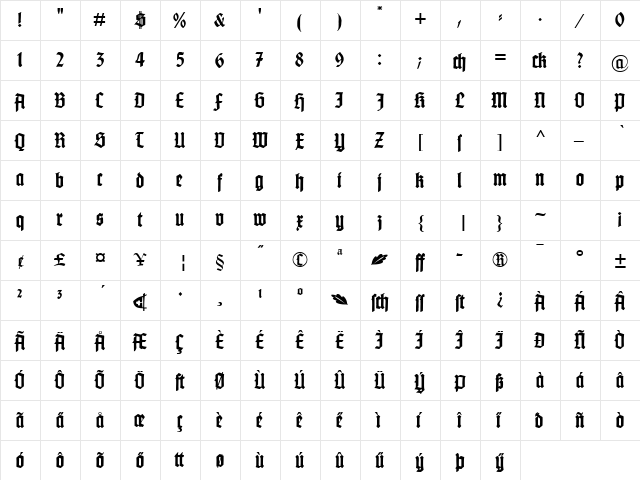
Gotenburg B Bold
| Designer | Dieter Steffmann |
Design Context for Gotenburg B Typeface
Gotenburg B is a composed and adaptable typeface that performs quietly and consistently across a wide range of design contexts. Its bold stroke weight gives it real presence on the page.